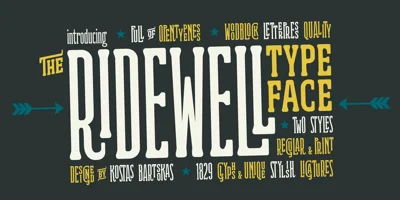
Ridewell Font
Ridewell Font is perfect for cycling companies, motorcycle dealerships, adventure tourism branding, transportation services, outdoor gear manufacturers, road trip campaigns, bike rental shops, and smooth ride experience communications requiring movement and journey aesthetics.
What makes Ridewell Font exciting is its smooth journey appeal that captures the effortless flow and comfortable navigation of pleasant travel experiences through fluid, well-balanced letterforms. This versatile typeface features streamlined character construction with gentle curves that evoke the satisfaction of smooth rides and comfortable journeys, making it ideal for brands seeking to communicate reliability, comfort, and the joy of seamless transportation in their mobility communications.
The Ridewell Font family includes regular and bold weights, plus flowing alternates and journey-inspired decorative elements that enhance the smooth-ride aesthetic with comfortable styling options and travel-focused typography variations for transportation applications.
This comfortable typeface delivers exceptional journey appeal and transportation reliability, making Ridewell Font a valuable resource for mobility and travel industry projects. The font's smooth character makes it perfect for organizations wanting to convey comfortable travel experiences and reliable transportation services in their brand communications. Bicycle manufacturers and ride-sharing companies particularly appreciate its ability to communicate smooth operation and customer comfort instantly to travelers and commuters. The fluidly designed letterforms ensure excellent readability while preserving the pleasant appeal of comfortable journeys across all applications from transportation apps to adventure travel brochures. Whether you're creating materials for premium bike tours or developing branding for comfortable transportation services, this font provides the perfect combination of journey comfort and commercial reliability. Creative professionals consistently choose this typeface for projects requiring that ideal balance of travel comfort messaging and transportation industry credibility, making it invaluable for mobility communications that celebrate both smooth performance and customer satisfaction in today's transportation-focused lifestyle market.